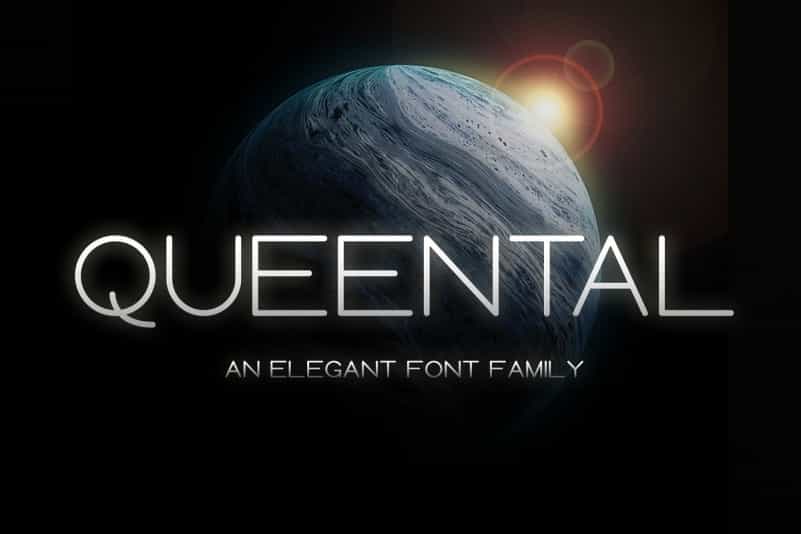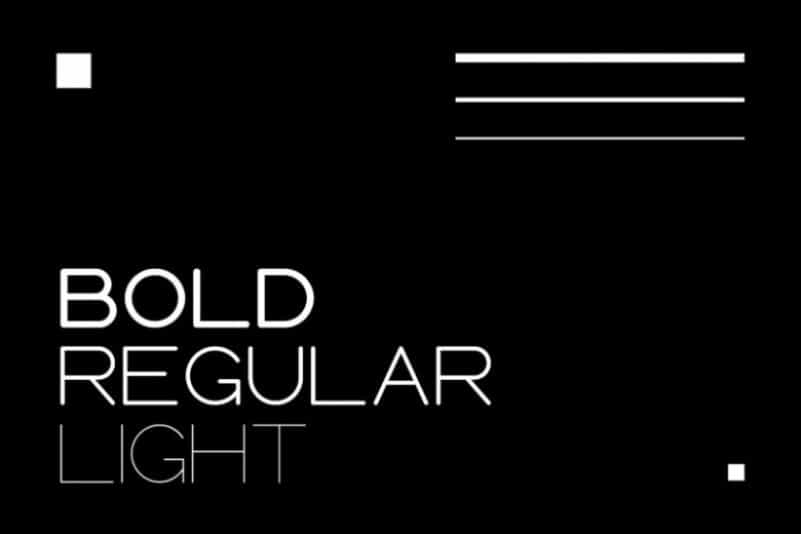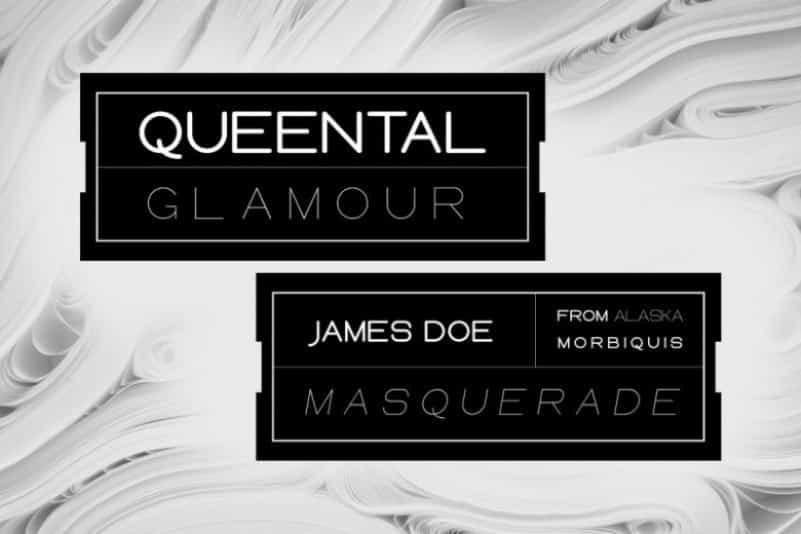
Queental Sans Font Family is a sleek sans font family that has been designed by StringLabs. It is a contemporary typeface with geometric shapes of the sans serif category. That’s a little bit of attitude. Queental Font is a sans serif font family in a classical style. This font is ideal for anyone who enjoys a powerful style.